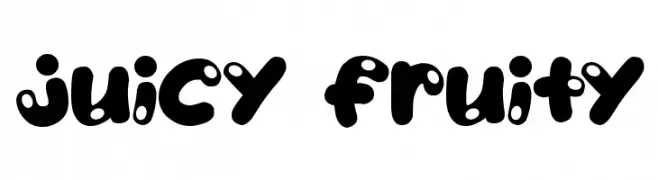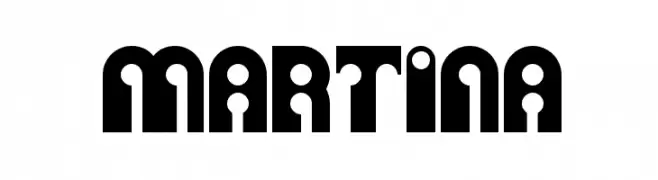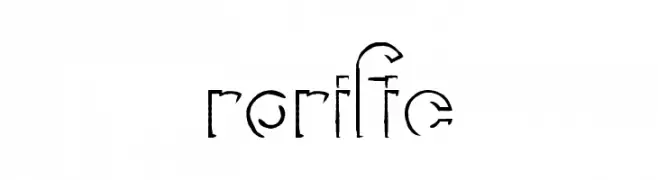
( READY PLAYER FONTE )
A bold, geometric font with a futuristic and playful design, featuring unique cutouts and patterns.
A bold, modern font with thick, rounded characters and unique cutouts.
A bold, geometric font with unique circular cutouts and a uniform appearance.
( Akos Polgardi - akospolgardi.com/ )
A bold, geometric font with unique cutouts and decorative elements.
( Bryan Augusto )
A futuristic, geometric font with bold, angular letterforms and unique cutouts.
( Darrell Flood )
A playful, cookie-inspired font with bold, rounded characters and decorative cutouts.
( Darrell Flood )
A playful, bubbly font with rounded, bold characters and whimsical cutouts.
( Darrell Flood )
A playful, bold font with a patchwork, robotic style featuring circular cutouts.
( David Martínez )
A modern, stencil-like font with geometric shapes and distinct cutouts.